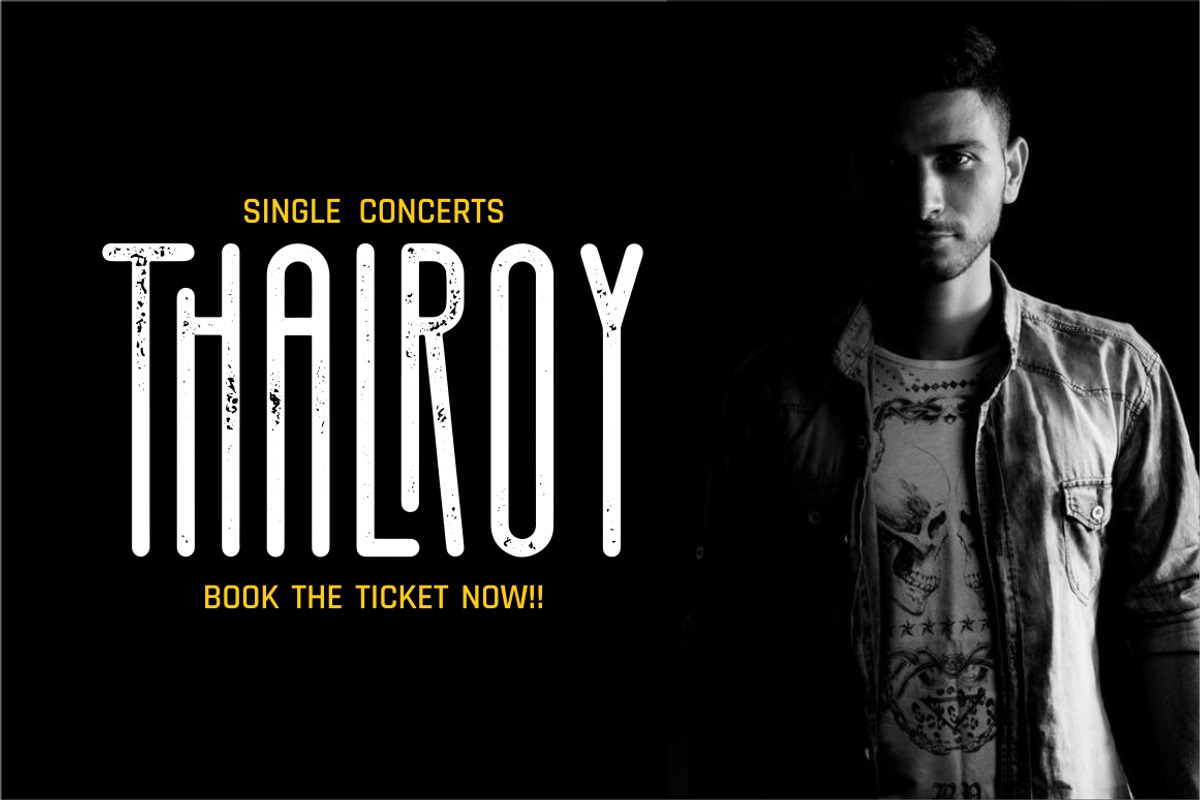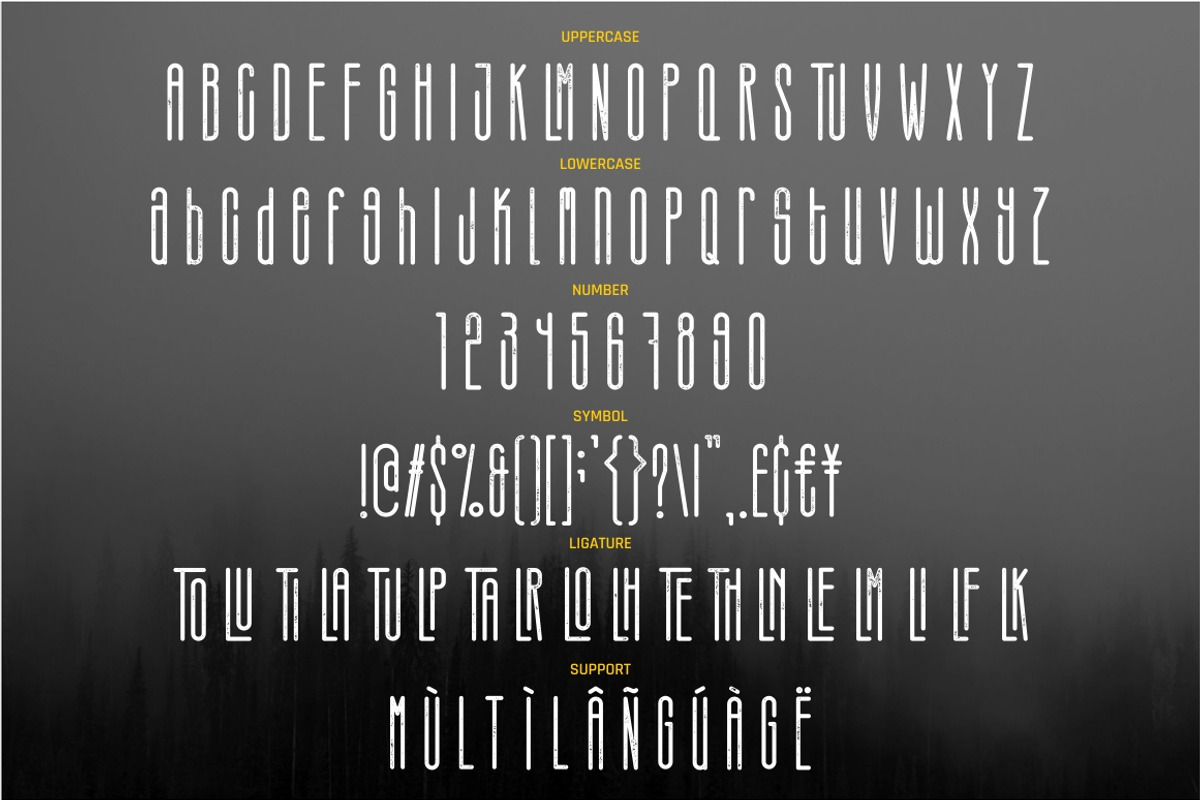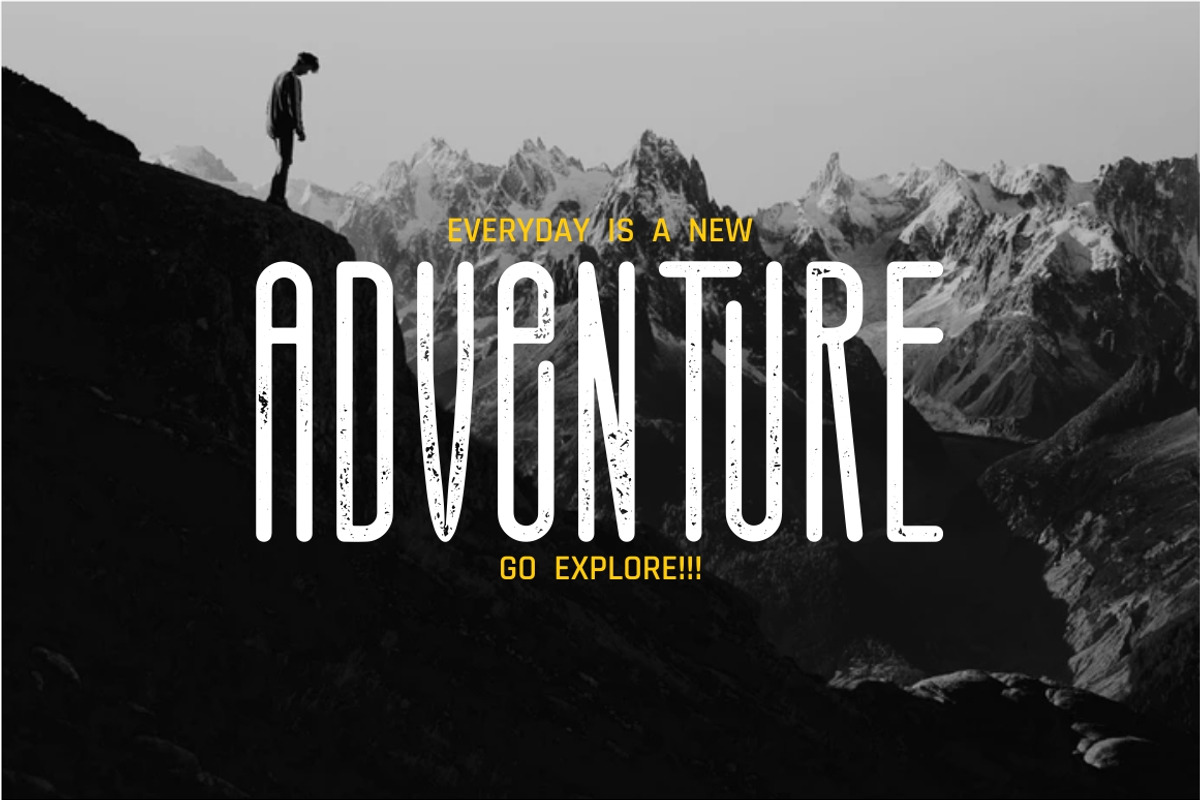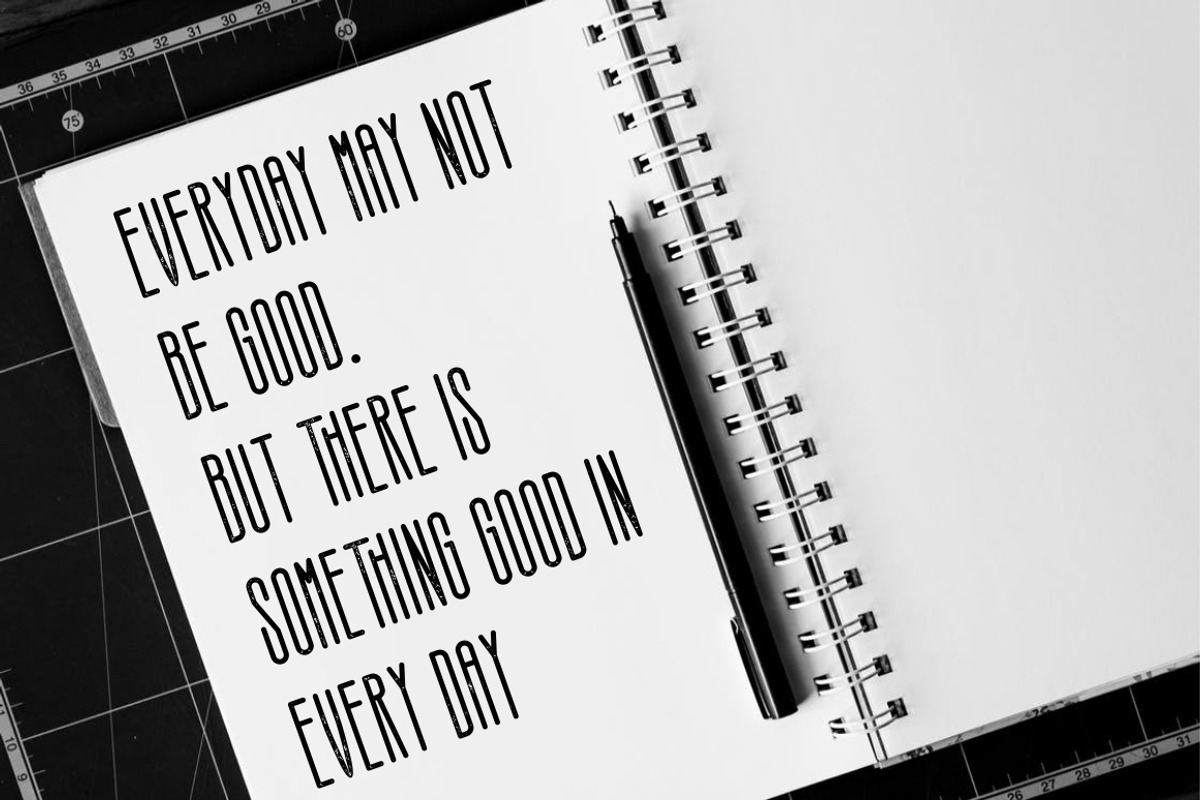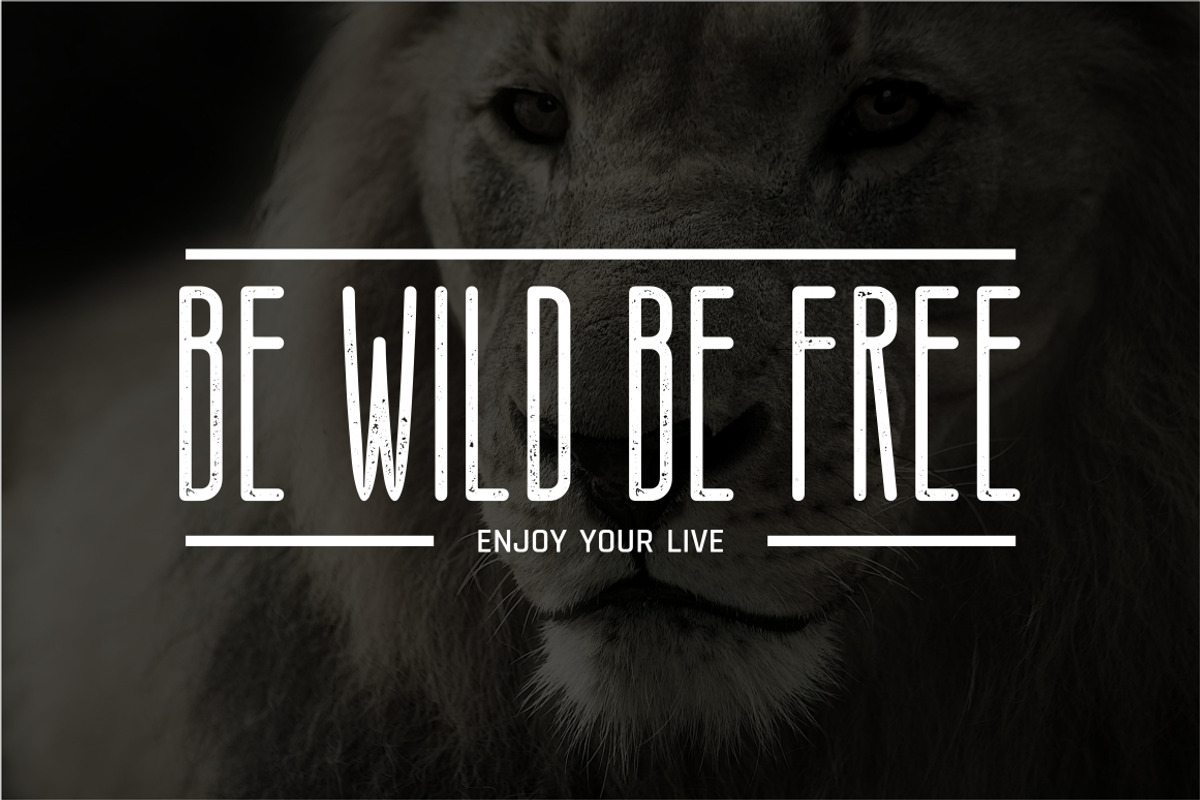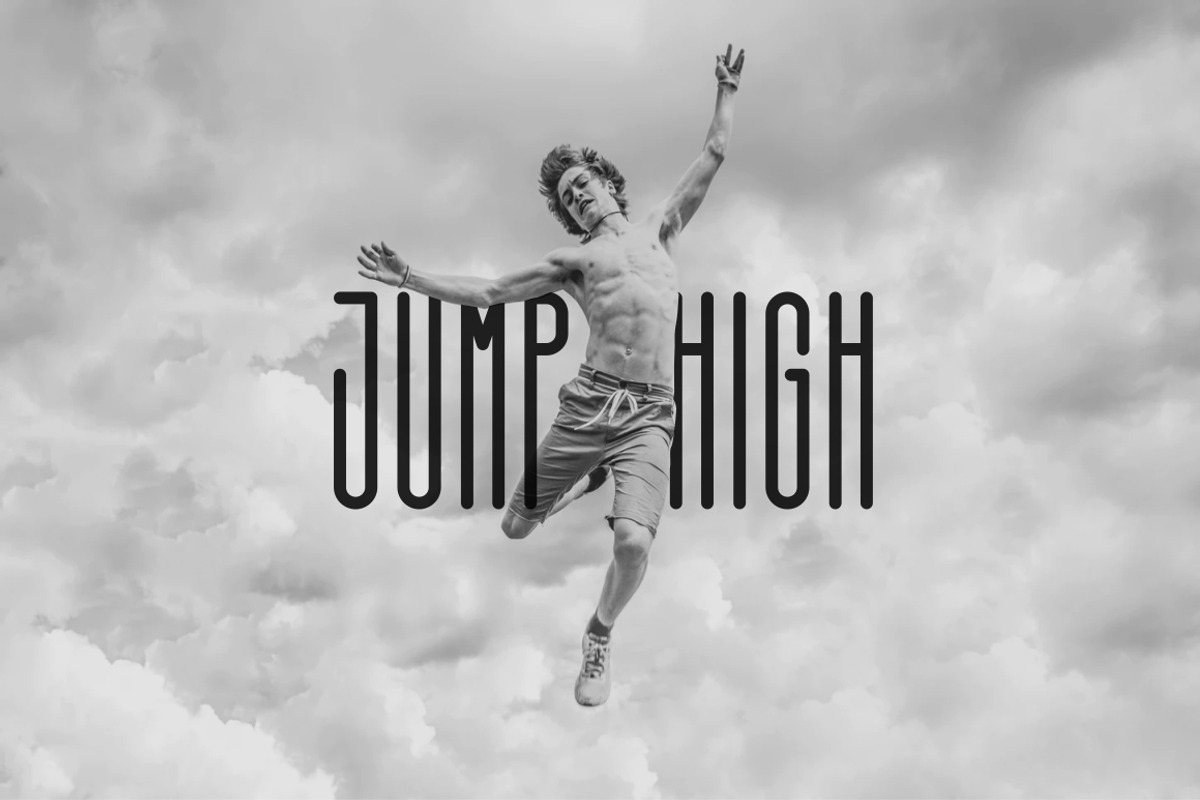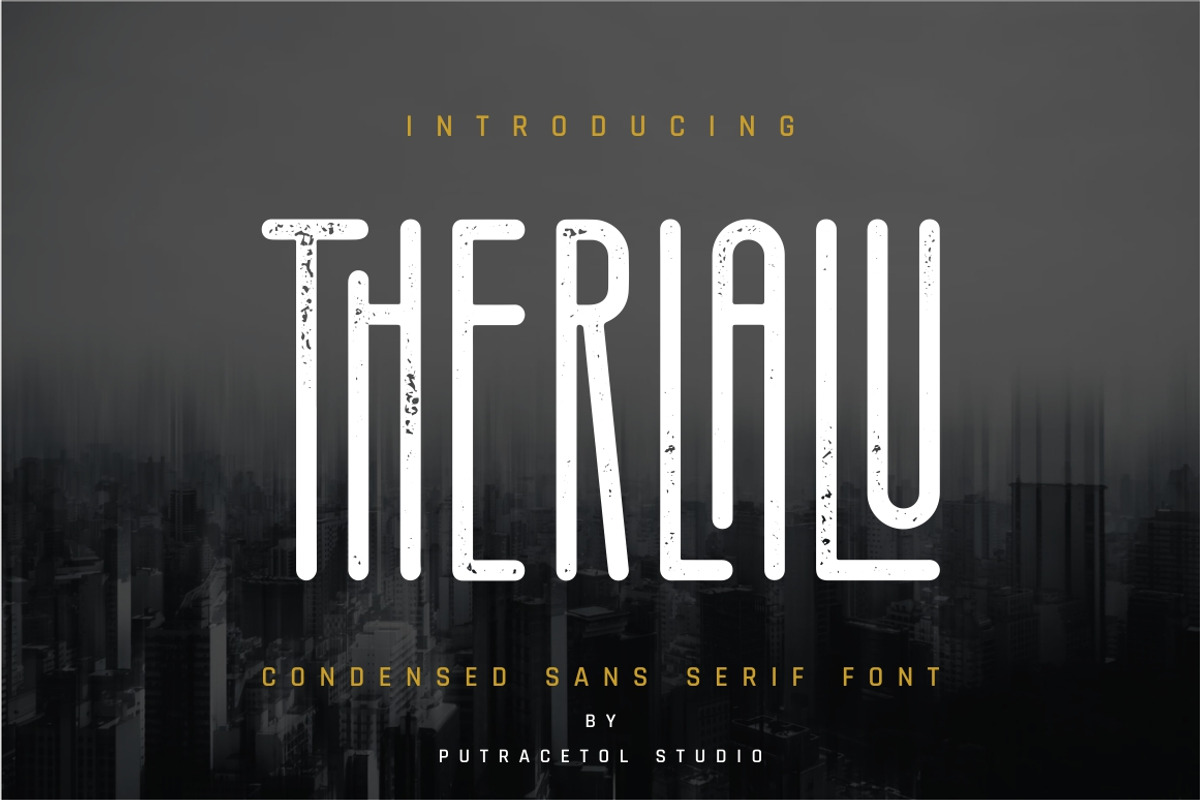
Therlalu - Condensed Sans Serif Font
Therlalu
Therlalu is an modern, sans serif, Elegant condensed display font. It contains a full set of lower & uppercase letters, punctuation, numerals, and multilingual support. Therlalu available in 2 stlye : Standar and Rough Version. Suitable for logos, Tshirt,handwritten quotes, product packaging, tittle header, poster, merchandise, social media, labels, branding & greeting cards.
- Number, Punctuation & Symbols
- Multilanguage